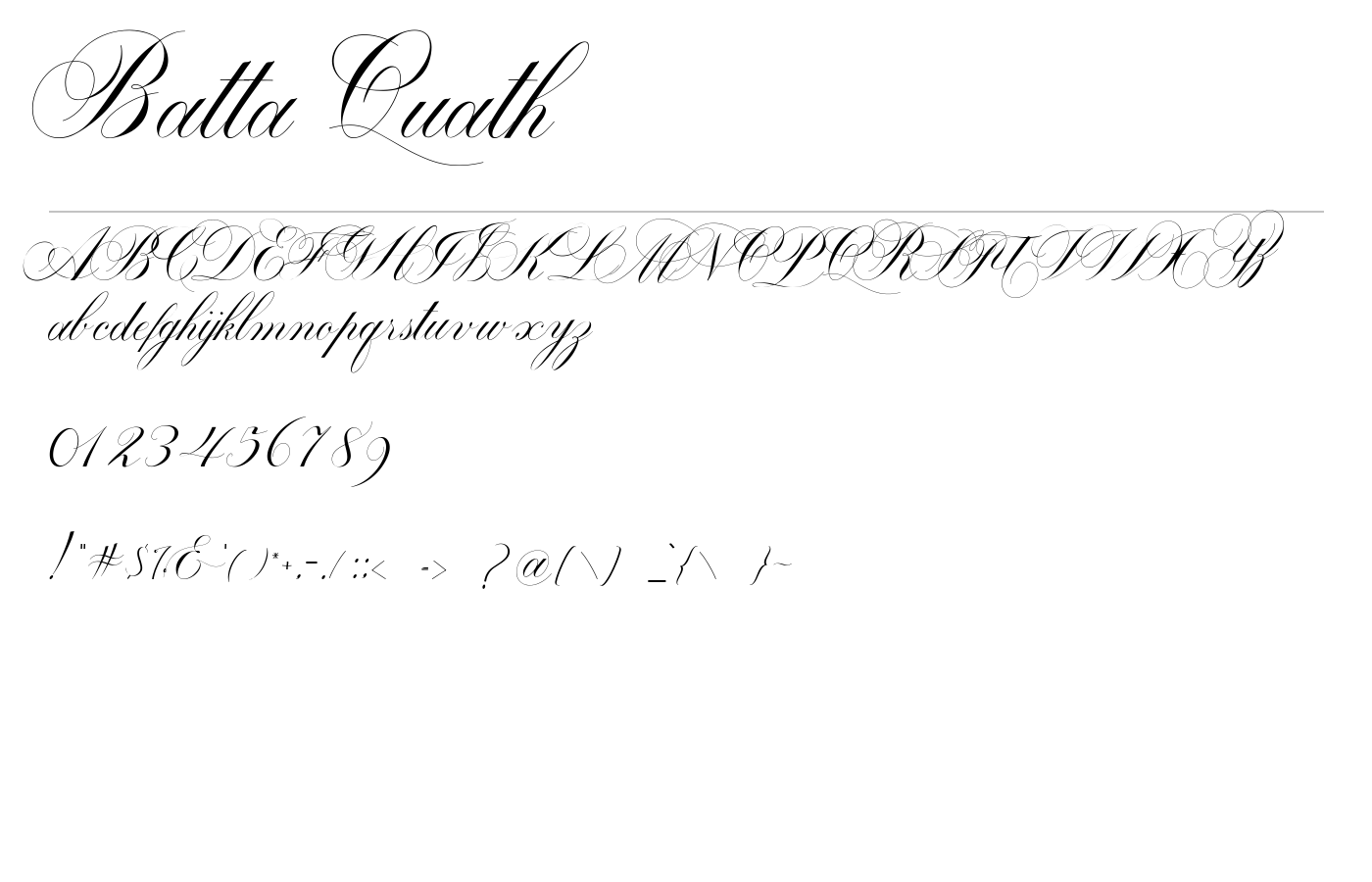
Batta Quath is an elegant, high-contrast script font featuring delicate, flowing strokes and ornate swashes that evoke a refined, luxurious feel. Its fine, calligraphic letterforms with exaggerated flourishes make it perfect for upscale branding, invitations, and editorial headlines where sophistication and grace are key. This font shines in settings that demand a touch of classic charm and artistic flair.
Batta Quath Font
About Batta Quath Font